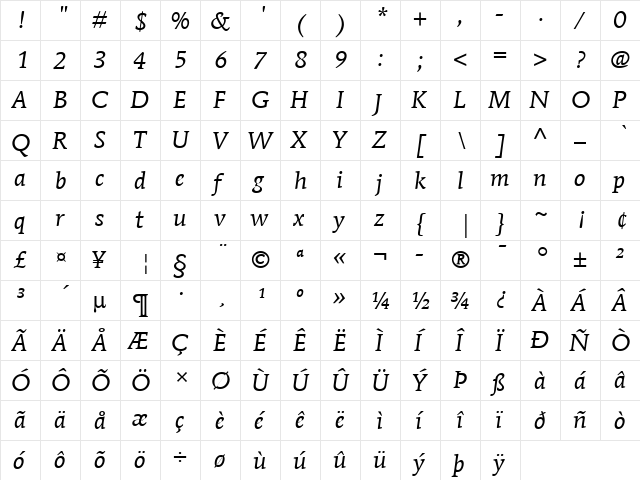
ITCMendozaRoman LT Book Italic Font Preview
Design Context for ITCMendozaRoman LT Book Typeface
ITCMendozaRoman LT Book offers clean, dependable letterforms without strong stylistic allegiance, making it a practical choice for designers who need flexibility. The slanted form adds forward momentum and visual energy. Its slender proportions lend an understated elegance to any composition.